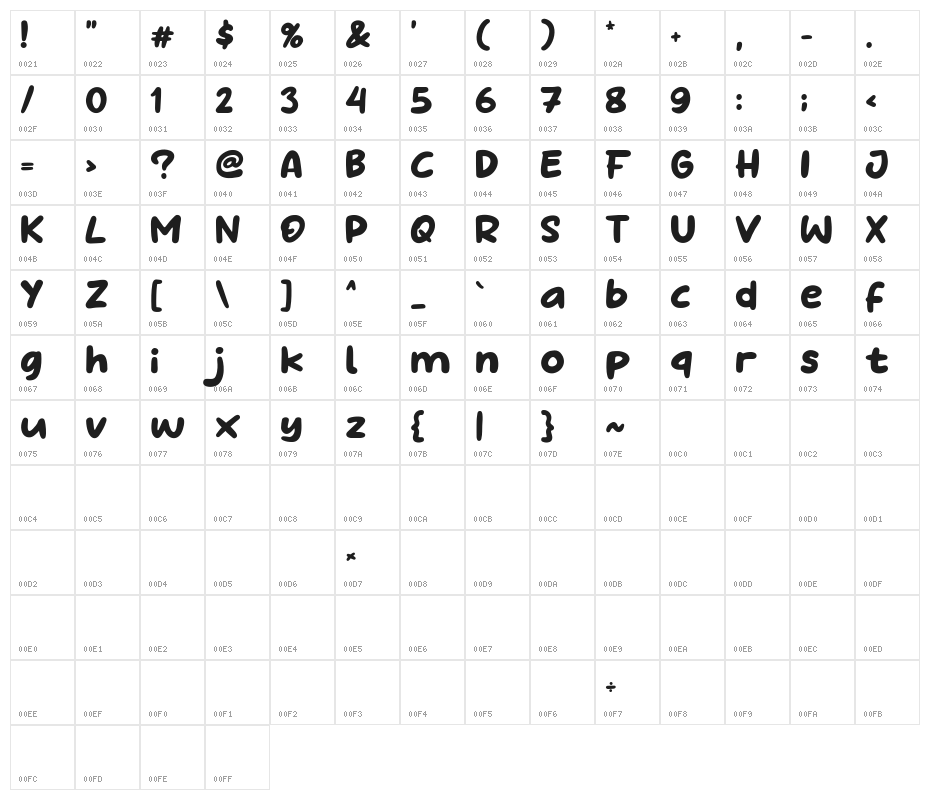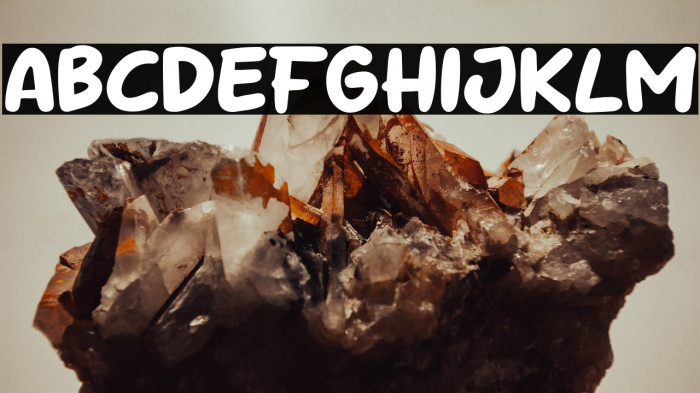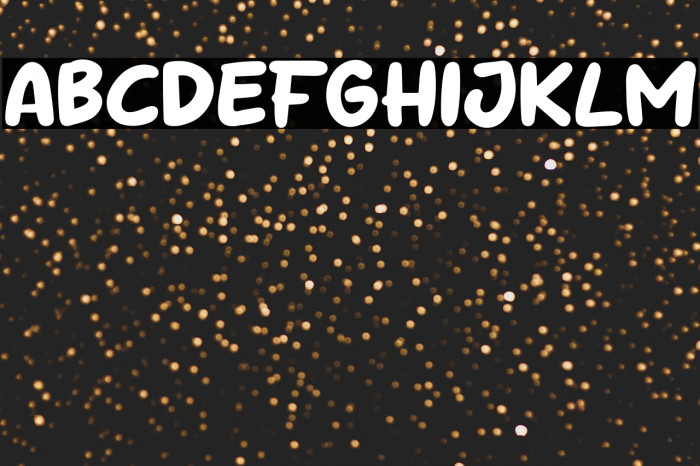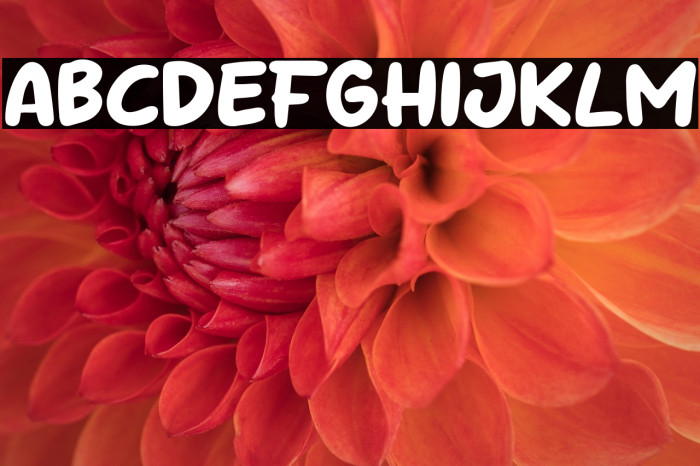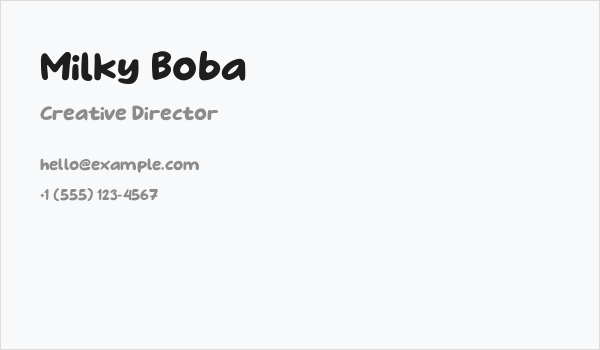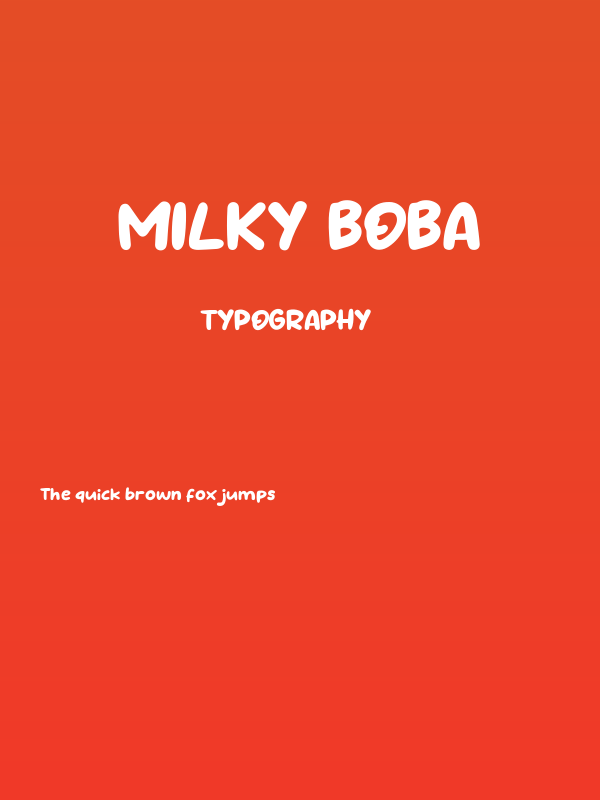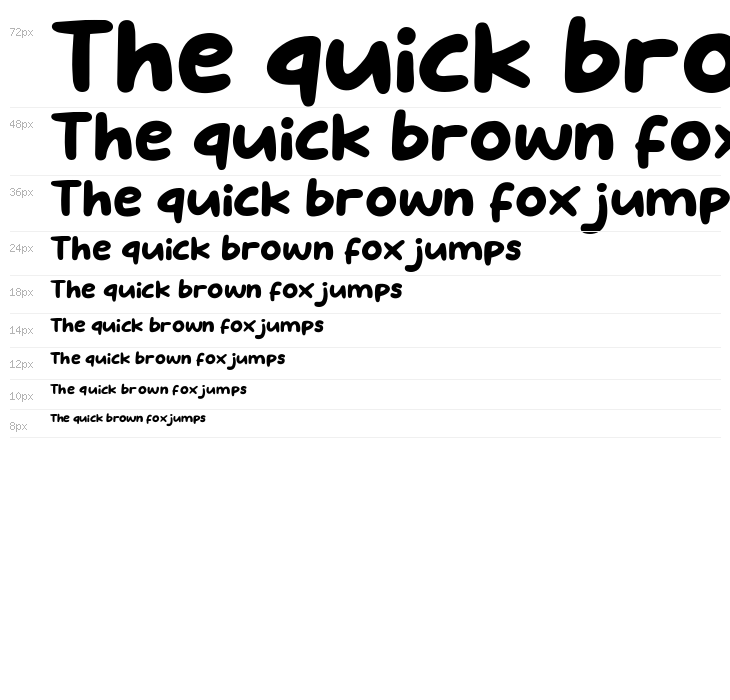
Milky Boba Font
Milky Boba Description
This playful and bold font features rounded, bubbly characters that exude a sense of fun and whimsy. The letters are thick and consistent in weight, giving them a strong presence on the page. The rounded edges and smooth curves create a friendly and approachable feel, making it ideal for projects that aim to convey warmth and creativity. The font includes a full set of uppercase and lowercase letters, numbers, and a variety of special characters, ensuring versatility in design applications. Its unique style is perfect for capturing attention and adding a touch of personality to any text.
| Overall Style | Playful, Fun |
| Proposed Projects | Ideal for children's books, playful branding, event posters, and creative social media graphics. |